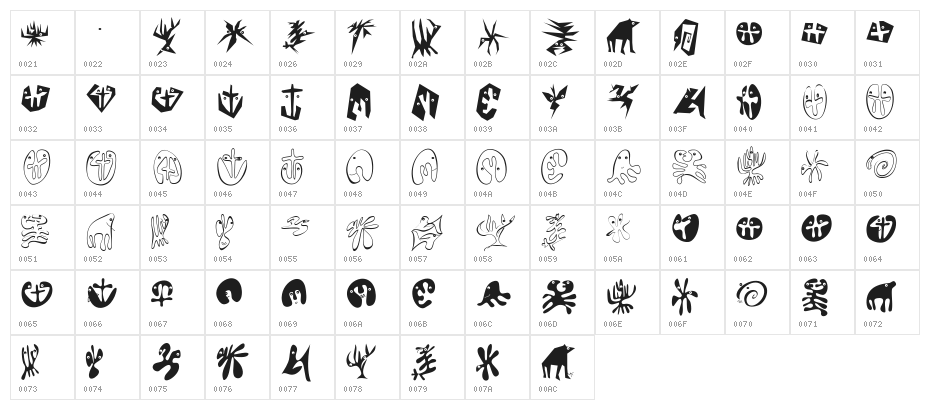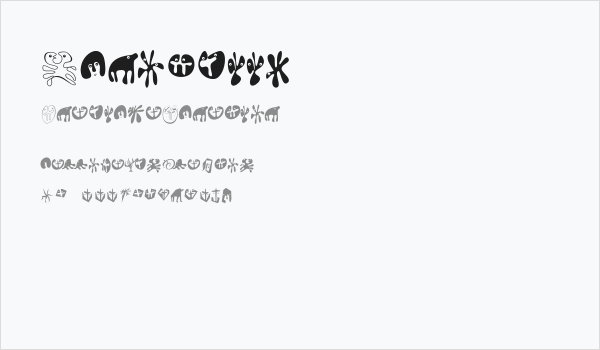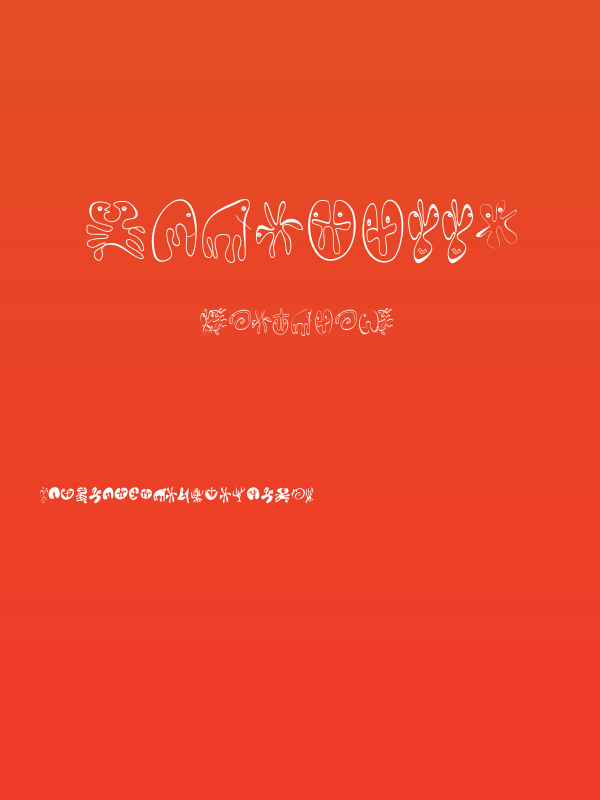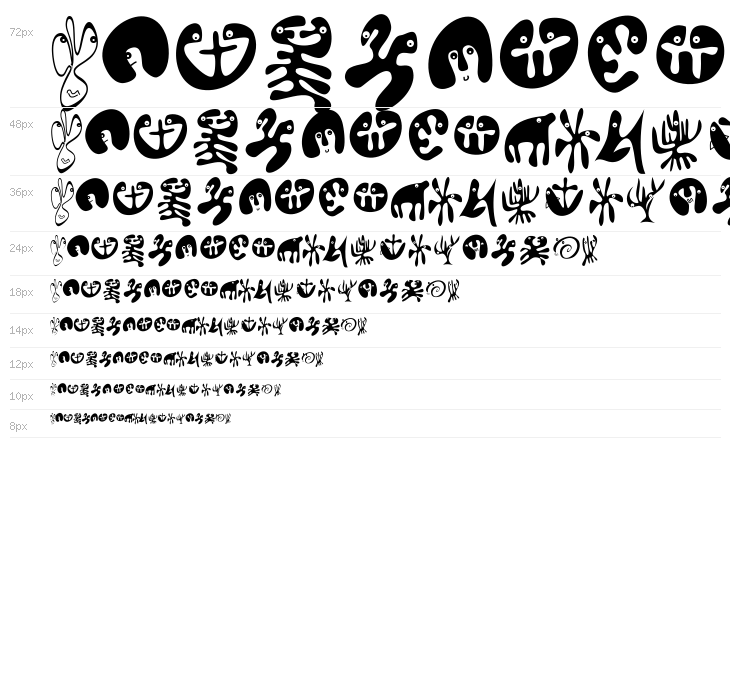
Mirobattz Font
| Caso d'uso | Logos, Artistic projects, Album covers |
| Progetti proposti | Ideal for artistic projects, unique branding, album covers, or any creative work that requires a standout, decorative typeface. |